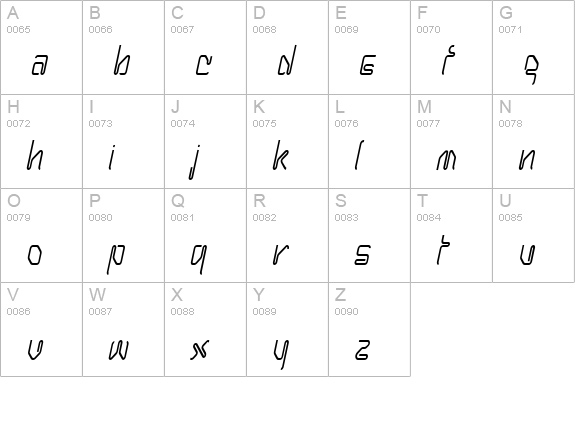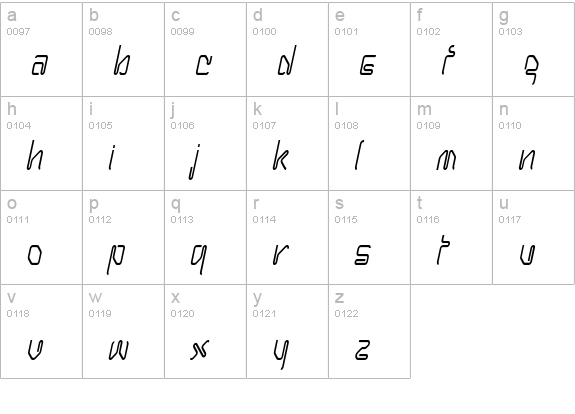
Hanger Condensed Italic is a distinctive, condensed-width, italic variant in the Hanger typeface family \xE2\x80\x94 well suited to design and typography projects.
Hanger Condensed Italic is a sleek and modern font that combines elegance with edge. Its condensed design provides a stylish and sophisticated look, making it the perfect choice for projects that require a touch of sophistication. The italicized style adds a sense of movement and flair, giving your designs a dynamic and contemporary feel. With its clean lines and well-defined curves, Hanger Condensed Italic is highly legible and versatile, making it suitable for a wide range of applications. Whether you're designing logos, headlines, or body text, this font will ensure your message is communicated with clarity and impact. One of the best features of Hanger Condensed Italic is that it is free to download at FontsMarket.com. This means that you can access this high-quality font without breaking the bank. Whether you're a professional designer or a casual enthusiast, having access to a diverse range of fonts is essential, and Hanger Condensed Italic delivers on all fronts. So why wait? Enhance your designs with the contemporary and chic Hanger Condensed Italic font. Download it for free at FontsMarket.com and elevate your projects to new heights of style and sophistication.